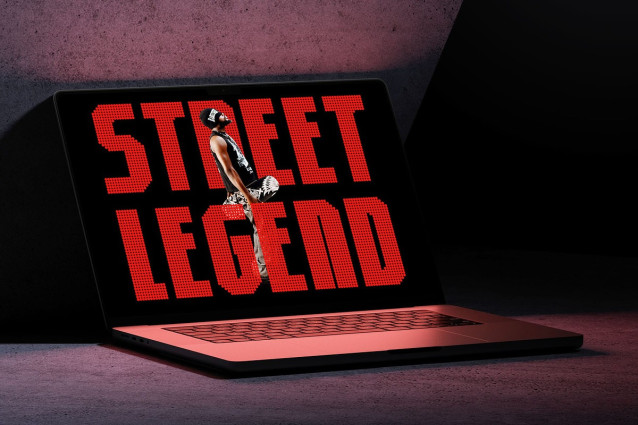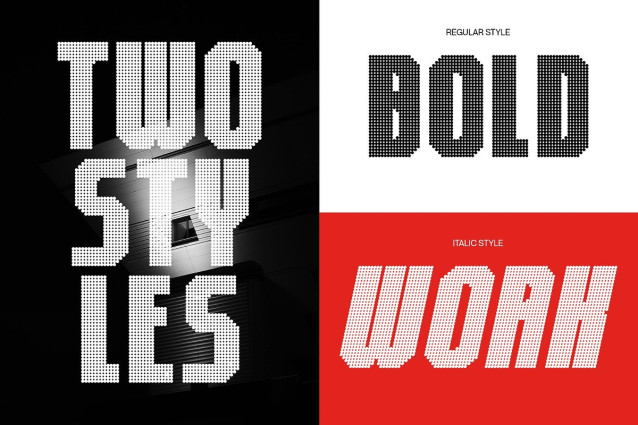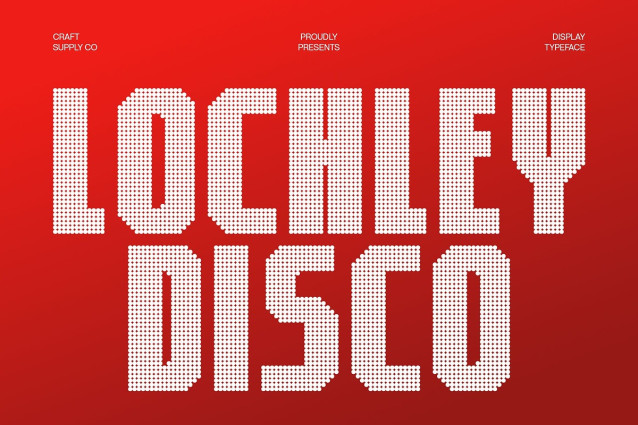
Lochley Disco Font features a condensed, bold design with sharp, industrial-inspired shapes that convey strength, masculinity, and technical precision. Its clean sans serif structure ensures clarity and readability, giving your projects a professional, authoritative, and impactful presence. The condensed form allows for efficient use of space without sacrificing boldness or legibility.
Disco Flair for Dynamic Energy A sparkling disco effect adds visual vibration, rhythm, and dynamic glamour to each character. This subtle yet striking detail transforms ordinary text into energetic, eye-catching typography, bringing movement and excitement to headlines, posters, or any creative layout. The disco sparkle balances the rigid industrial style with a playful and vibrant twist.
Bold, Modern, and Masculine By combining rigid, industrial-inspired shapes with disco-inspired accents, Lochley Disco projects a confident, modern, and technical personality. Its strong weight and geometric structure make it ideal for projects that demand visual authority while maintaining a fresh, contemporary, and stylish edge.
Perfect for Posters, Branding, and Creative Projects Lochley Disco is ideal for posters, branding, headlines, advertising, packaging, social media, and other creative applications. The fusion of industrial strength and disco sparkle ensures designs are bold, modern, and visually compelling.